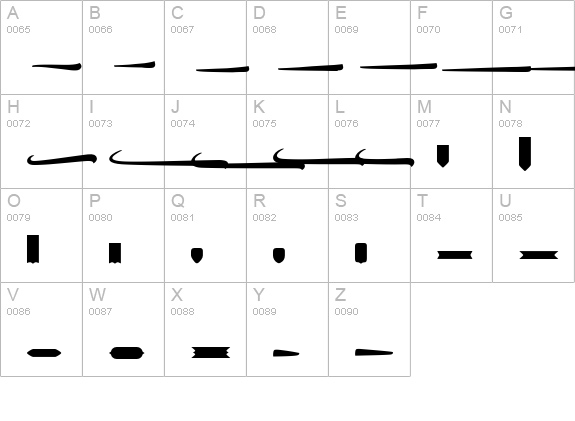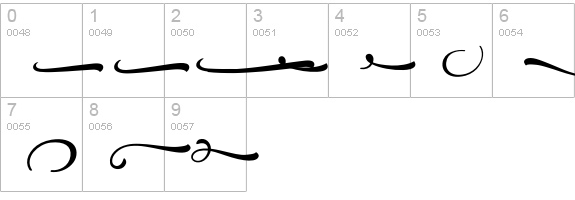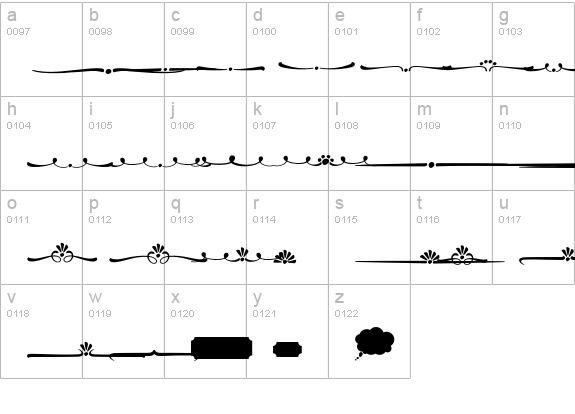
Peaches and Cream Ornaments Font Details
The Peaches and Cream Ornaments font is a charming and elegant typeface that adds a touch of whimsy and sophistication to any design project. With its delicate swirls and intricate details, this font is perfect for creating beautiful invitations, greeting cards, and other creative works. What sets Peaches and Cream Ornaments font apart is its unique ornamental elements that resemble delicate peaches and creamy swirls, adding a sweet and luxurious feel to your designs. Whether you're designing for weddings, parties, or special occasions, this font will surely make your projects stand out. The best part? Peaches and Cream Ornaments font is available for free download at FontsMarket.com, making it accessible to all designers and creatives looking to add a touch of elegance to their work. So why wait? Download this gorgeous font today and elevate your designs with a touch of sweetness and creaminess.